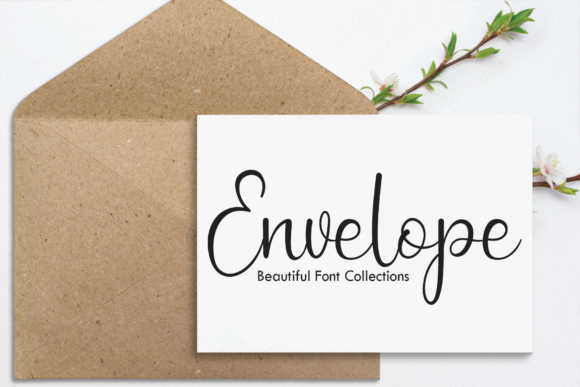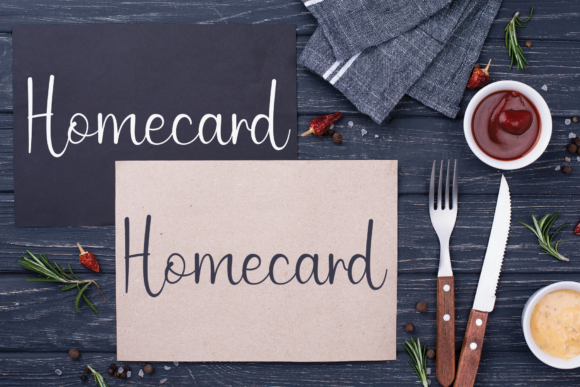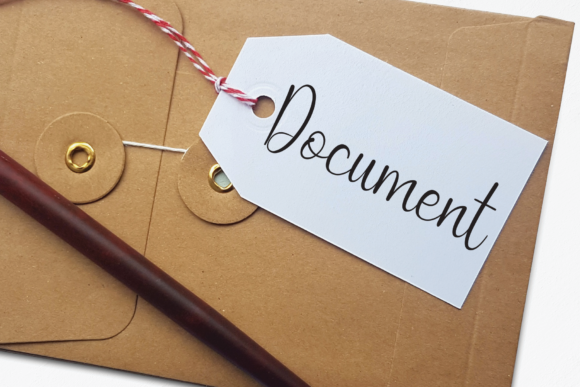
Before Breakfast Font
About Before Breakfast Font
Before Breakfast is a captivating handwritten font celebrated for its beauty and flowing elegance. Its versatility makes it a perfect choice for a wide range of creative projects, including wall hangings, wedding invitations, social media post logos, advertising materials, product packaging, product design, labels, photography, watermarks, invitations, stationery, and any project that demands impressive typography.
With its graceful strokes and seamless curves, Before Breakfast adds a touch of sophistication to every design it graces. Whether you’re creating a charming wall hanging or designing an elegant wedding invitation, this font enhances the visual appeal of your project and captivates your audience’s attention.
The versatility of Before Breakfast extends to branding and logo design, where its handwritten charm brings a personalized touch to your brand identity. Whether you’re a small business or a large corporation, this font helps you create a distinct and memorable brand image that resonates with your target audience.
Beyond its aesthetic appeal, Before Breakfast is also highly functional, ensuring that your message is conveyed clearly across various mediums, from print to digital platforms.
In summary, Before Breakfast is more than just a font—it’s a versatile tool that empowers designers to elevate their projects with impressive typography. Whether you’re a seasoned professional or a novice enthusiast, this font offers endless possibilities for creativity and expression.